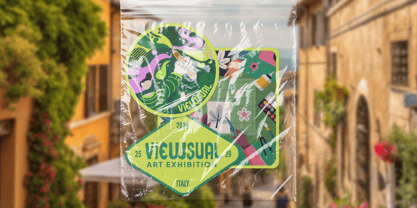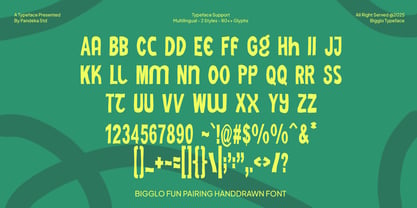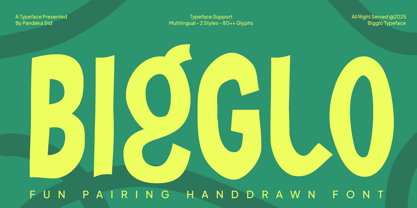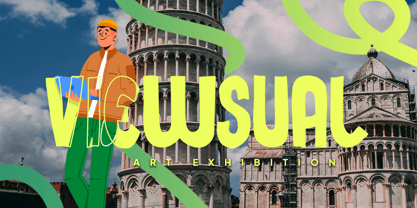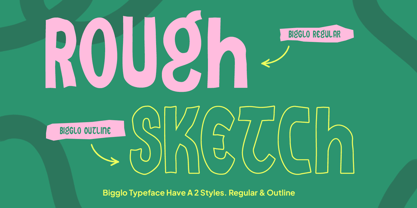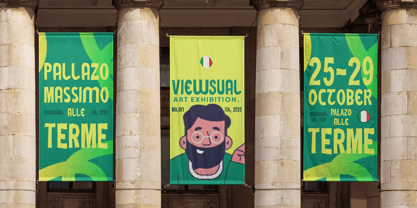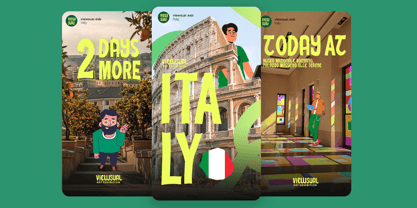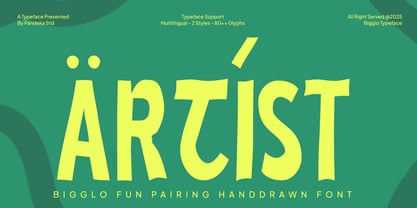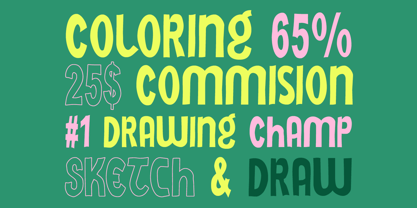
Bigglo
by Pandeka Studio
The Bigglo Font Family was designed by Sagara Nararya and published by Pandeka Studio. Bigglo contains 2 styles and family package options.
Bigglo is a lively and expressive hand-drawn font duo that brings playful character to every design. With its organic strokes and quirky forms, Bigglo captures the energy of doodles and sketches — perfect for art-themed posters, creative branding, packaging, children’s books, or any design that needs a fun and spontaneous feel. This font comes in 2 styles: Regular & Outline, making it ideal for creative pairing and layered typography. It includes uppercase, lowercase, numbers, punctuation, and multilingual support. Whether you want bold headlines or outlined details, Bigglo adds a fresh, artistic, and dynamic personality to your work. What’s Included: Main Files formats 2 Style: Regular and Outline Full Character Set: Uppercase, lowercase, numbers, symbols, and punctuation Easy to Use: Works on both PC & Mac Compatible with Adobe Illustrator, Photoshop, Microsoft Word, Canva, and more PUA Encoded: Fully accessible without additional software Language Support: Danish, English, Estonian, Filipino, Finnish, French, Friulian, Galician, German, Gusii, Indonesian, Irish, Italian, Luxembourgish, Norwegian Bokmål, Norwegian Nynorsk, Nyankole, Oromo, Portuguese, Romansh, Rombo, Spanish, Swedish, Swiss-German, Uzbek (Latin) Fun Pairing Handdrawn Font Playful Typography Cheerful Lettering Creative Design Whimsical Style Friendly Aesthetic Unique Typeface Thank you and happy designing! Pandeka Studio